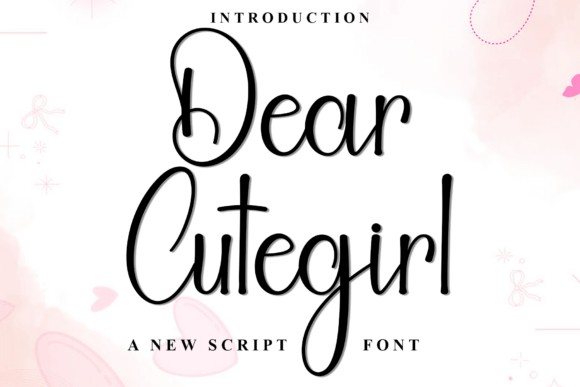
The Magic of the Holiday Season: Introducing Dear Cutegirl Font
As the snowflakes start to fall and the fireplace crackles to life, there’s something special about this time of year that sparks our creativity. Perhaps it’s the twinkling lights, the festive decorations, or the joyous spirit that fills the air. Whatever it is, it’s the perfect moment to break out your favorite holiday font – and that’s exactly where Dear Cutegirl Font comes in.
This enchanting typeface is designed to capture the essence of the holiday season, with its whimsical flair and decorative elements adding a touch of magic to your designs. Whether you’re creating greeting cards, gift tags, or holiday-themed projects, Dear Cutegirl Font is the perfect companion to bring a cheerful and nostalgic ambiance to your words.
Dear Cutegirl Font Key Features
- Font Family: Dear Cutegirl Font is a unique, handwritten font designed to add a touch of elegance and sophistication to various designs.
- Unique Characteristics: Features a mix of cursive and handwritten elements, creating a distinctive and eye-catching look that sets it apart from other fonts.
Dear Cutegirl Font Review
Overall, I’m really loving the Dear Cutegirl Font. It’s a unique and playful addition to any design project. ✨ The font’s feminine touch and quirky charm make it perfect for branding and marketing materials, especially in the fashion and beauty industry. The bold and cursive styles add a lot of character to text, making it stand out on any platform.
- Cute and feminine aesthetic
- Perfect for fashion and beauty brands
- Quirky and playful feel
- Available in bold and cursive styles
However, there are a few limitations to consider. ⚠️ The font may not be suitable for all types of projects, as it can come across as overly cutesy or childish. Additionally, the font’s quirky feel may not be to everyone’s taste. It’s also worth noting that the font may not be as legible in smaller sizes or when used in complex compositions.
Overall, I think the Dear Cutegirl Font is a great addition to any designer’s toolkit. With its unique aesthetic and playful feel, it’s perfect for designers looking to add some personality to their projects. Just be mindful of the font’s limitations and use it thoughtfully.
Tips for Getting the Most Out of “Dear Cutegirl Font”
Here are some tips to help you get the most out of “Dear Cutegirl Font”:
- Experiment with different font sizes and colors to create a visually appealing design.
- Use the font in combination with other design elements, such as graphics and images, to create a cohesive look.
- Consider using the font in a distressed or vintage style to add a unique touch to your design.
Common Use Cases for “Dear Cutegirl Font
Alternatives to Dear Cutegirl Font
The Great Vibes Font is a modern, elegant, and playful script font. It is ideal for use in titles, headings, and quotes. Great Vibes is similar to Dear Cutegirl Font in its cursive style, but it has a more refined and sophisticated look. It is perfect for designers who want to add a touch of whimsy to their designs without being too flashy.
The Carolyna Pro Font is a beautiful, elegant, and modern script font. It is perfect for use in titles, headings, and body text. Carolyna Pro has a more polished and refined look compared to Dear Cutegirl Font, making it ideal for designers who want to create a high-end and luxurious feel in their designs.
Are there any font pairing recommendations for Dear Cutegirl?
Yes, we recommend pairing the Dear Cutegirl font with other fonts that have a similar aesthetic or style. Some popular pairing options include Great Vibes, Lato, and Montserrat. You can also experiment with pairing the font with serif fonts like Merriweather or Georgia for a more classic look.